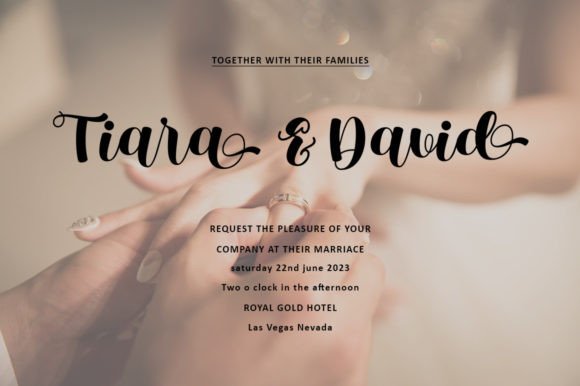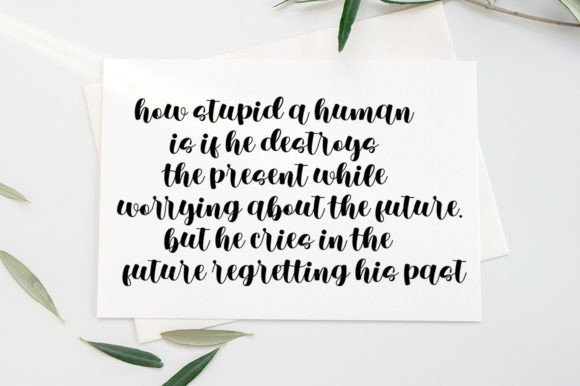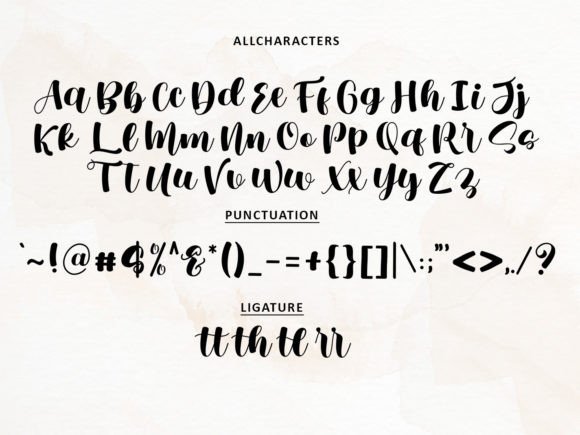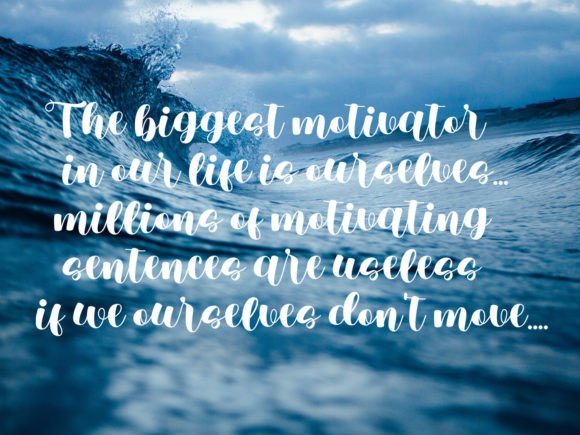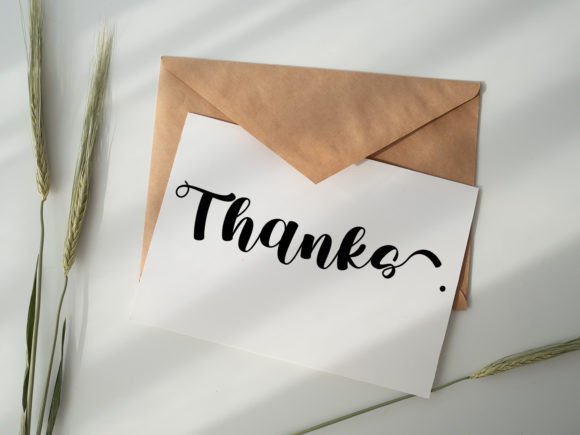
Defia Font
About Defia Font
DefiaFont is a charming and elegant handwritten typeface that adds a personal and stylish touch to any design. Its smooth and graceful strokes create a warm, inviting feel, making it an excellent choice for projects requiring a handwritten touch.
Elegant and Versatile Style of Defia Font
DefiaFont features balanced letterforms and flowing lines that enhance the beauty of your creative work. Whether you are designing wedding invitations, thank you cards, or greeting cards, this font brings sophistication and charm. It is equally suitable for logos and business cards, giving a unique, handcrafted look that stands out.
Perfect for Various Projects Using Defia Font
This font shines across many design applications, such as:
• Wedding invitations with a romantic, handcrafted feel
• Thank you cards and greeting cards that express warmth
• Quotes and social media graphics needing a stylish handwritten vibe
• Elegant logos and business cards for a professional yet personal touch
DefiaFont’s versatility makes it ideal for both formal and casual designs, allowing you to maintain elegance while keeping your work approachable.
Why Choose Defia Font for Your Designs?
Choosing DefiaFont means adding a beautiful, elegant handwritten style to your projects. It ensures your creations communicate personality and authenticity. With its refined curves and timeless style, DefiaFont is a valuable asset for designers looking to elevate their work with a handcrafted feel.